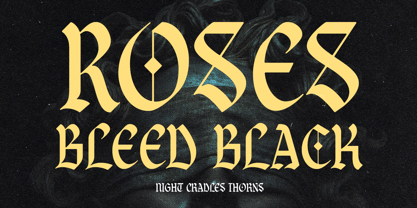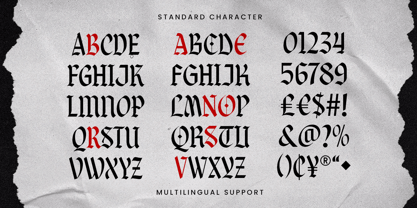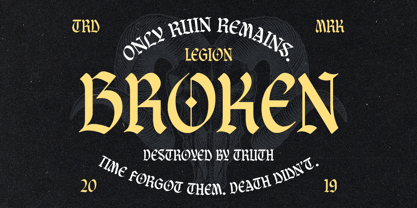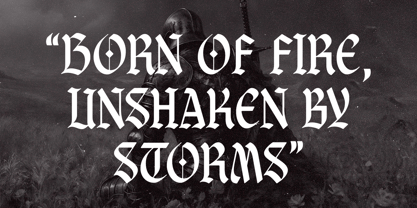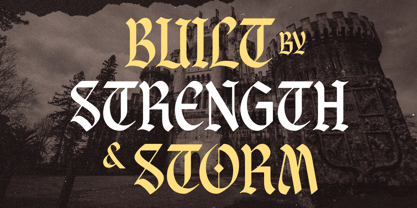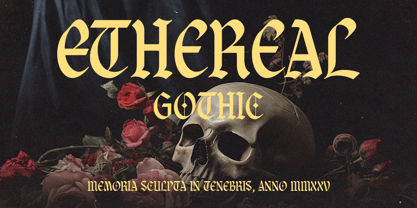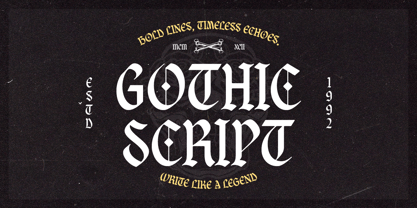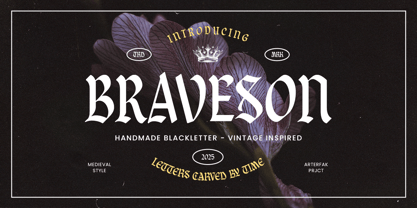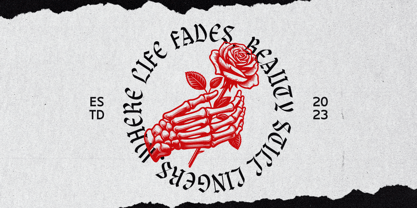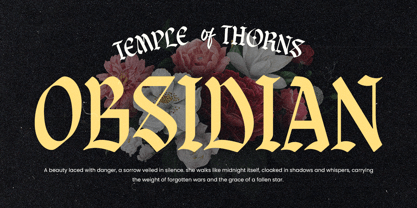
Braveson
Braveson is an all-caps blackletter font inspired by vintage aesthetics and gothic style. Crafted by blending various blackletter traditions with reduced ornamental details, Braveson is designed to make your work stand out with bold impact.
It captures a sense of strength, spirit, and style, making it perfect for headlines, logos, apparel, illustrations, stickers, posters, and other display purposes.
Braveson comes with multilingual support and stylistic alternates, giving you the flexibility to fine-tune your typography and create designs that truly speak.
Fonts featured :
- All-capitals character set
- Numbers
- Symbols & punctuation
- Stylistic alternates
- Multilingual support